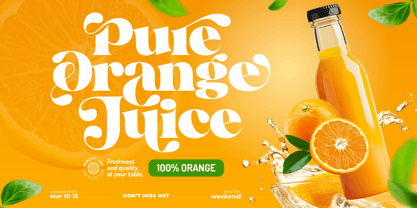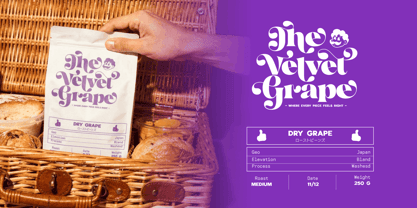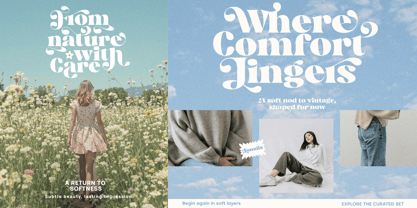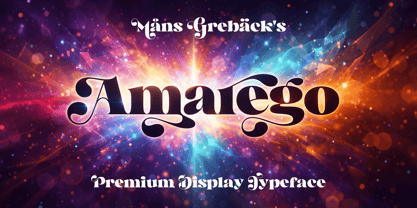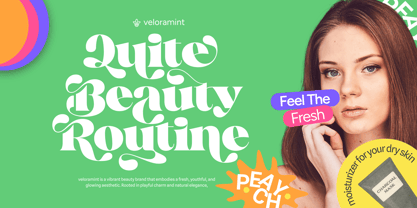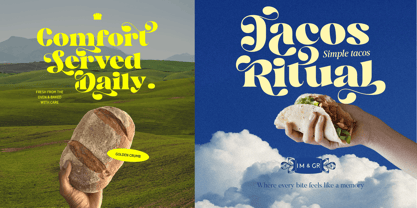
Amarego
by Mans Greback
The Amarego Font Family was designed by Måns Grebäck and published by Mans Greback. Amarego contains 2 styles and family package options. More about this family
Amarego is a decorative display typeface with a confident, flowing presence and a soft sense of drama. The letterforms are bold and rounded, with sweeping curves and expressive terminals that give the font a lively rhythm. Its style draws from vintage signage and ornamental lettering, but keeps a clean balance that makes it feel contemporary. Each character connects visually with the next, creating words that feel sculpted rather than simply written. The font is built with advanced functionality and guaranteed top-notch quality, containing stylistic and contextual alternates, ligatures and more automatic and manual features; all to give you full control and customizability. It has extensive lingual support, covering all Latin-based languages, from North Europa to South Africa, from America to South-East Asia. It contains all characters and symbols you'll ever need, including all punctuation and numbers. Amarego was designed as a display face with personality at its core. The goal was to create letterforms that feel generous and expressive, while still remaining readable and well-structured. It is a font that invites attention without forcing it, letting the shapes speak through subtle movement and weight.